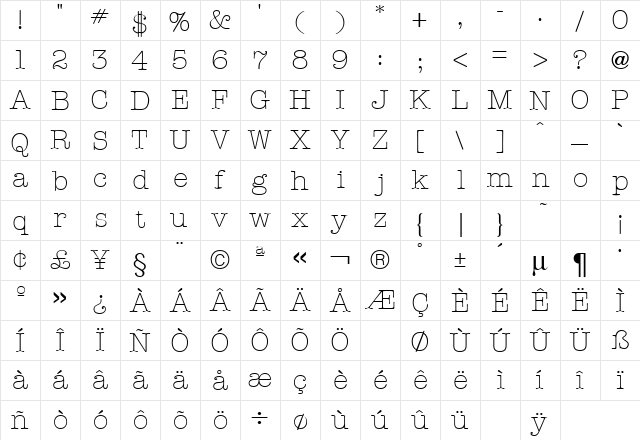
American Type Light Regular
Design Context for American Type Light Typeface
American Type Light offers clean, dependable letterforms without strong stylistic allegiance, making it a practical choice for designers who need flexibility. The delicate stroke weight brings airiness and refinement to layouts.